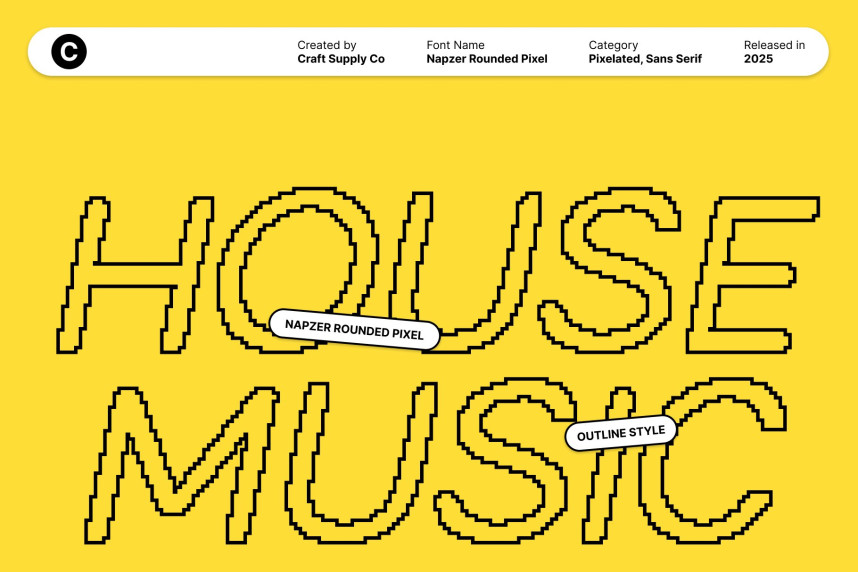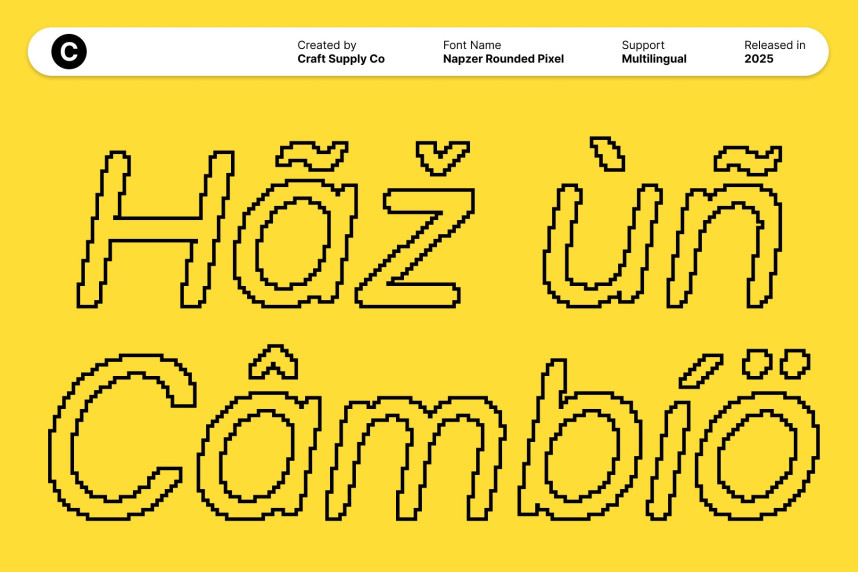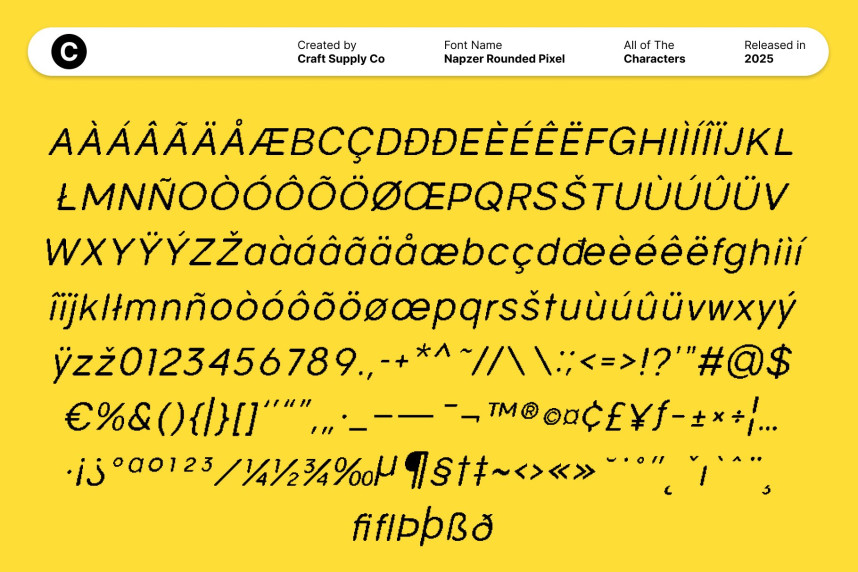
Napzer Rounded Pixel Font
Napzer Rounded Pixel Font – Modern Sans Serif Display Font with Pixel Precision Geometric and Sleek Design for Contemporary Elegance. This is a modern sans serif display font crafted with geometric precision and sleek, clean lines. Its minimalist structure conveys sophistication and clarity, making it ideal for contemporary designs that demand elegance, professionalism, and visual harmony. Each letterform is designed to feel balanced, modern, and highly readable.